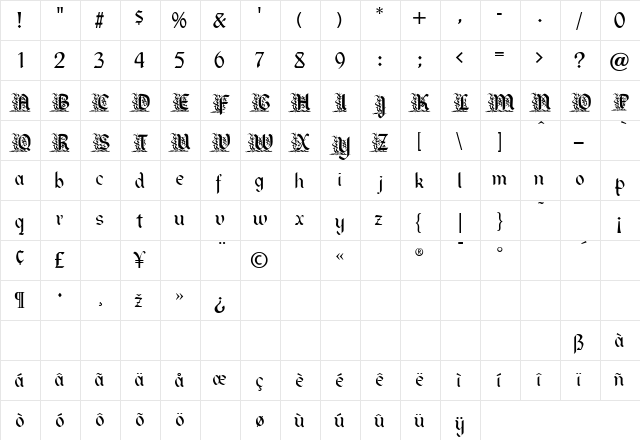
Davis Fancy Regular Font Preview
Davis Fancy Regular
Design Context for Davis Fancy Typeface
Davis Fancy is a composed and adaptable typeface that performs quietly and consistently across a wide range of design contexts.